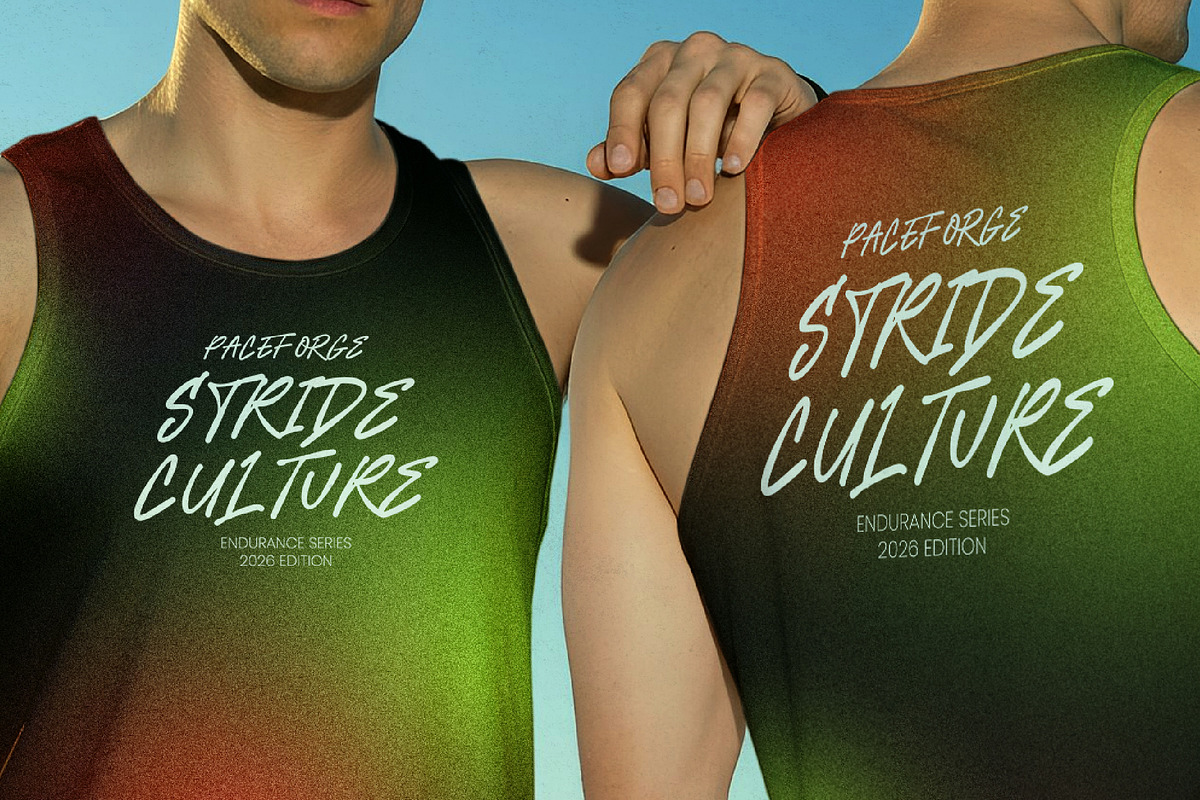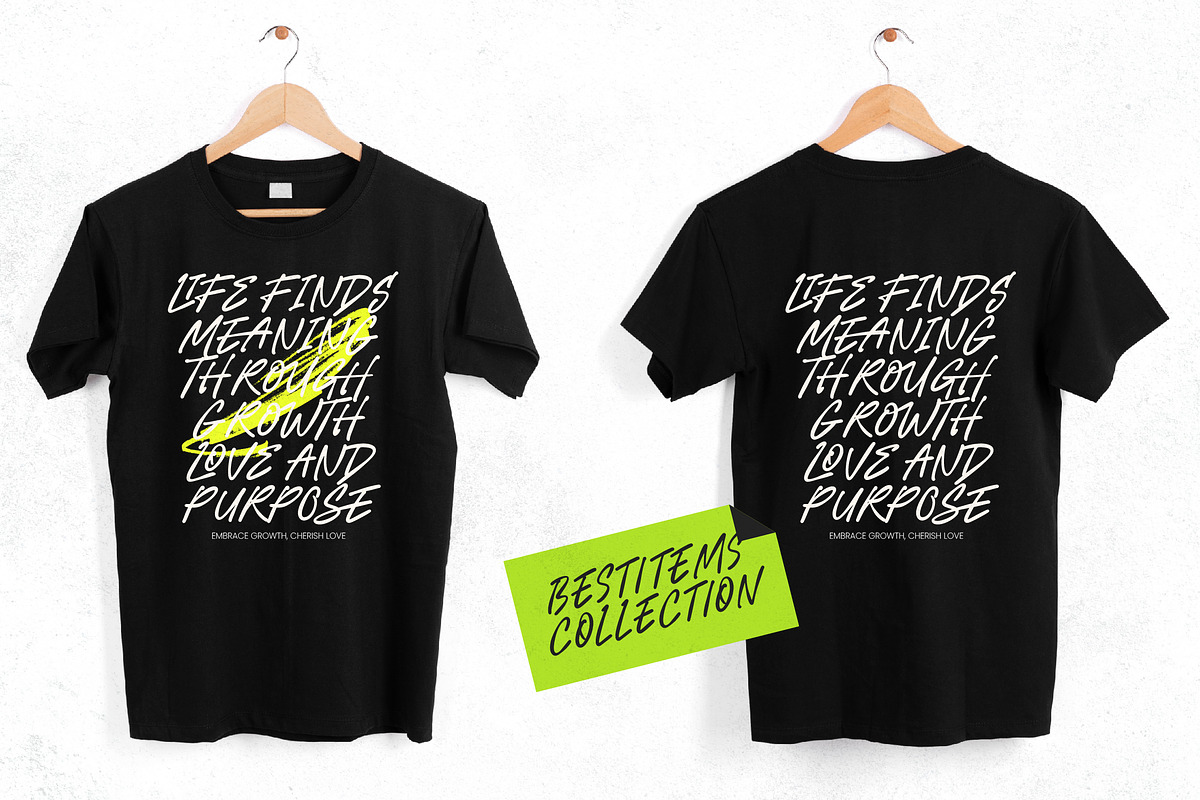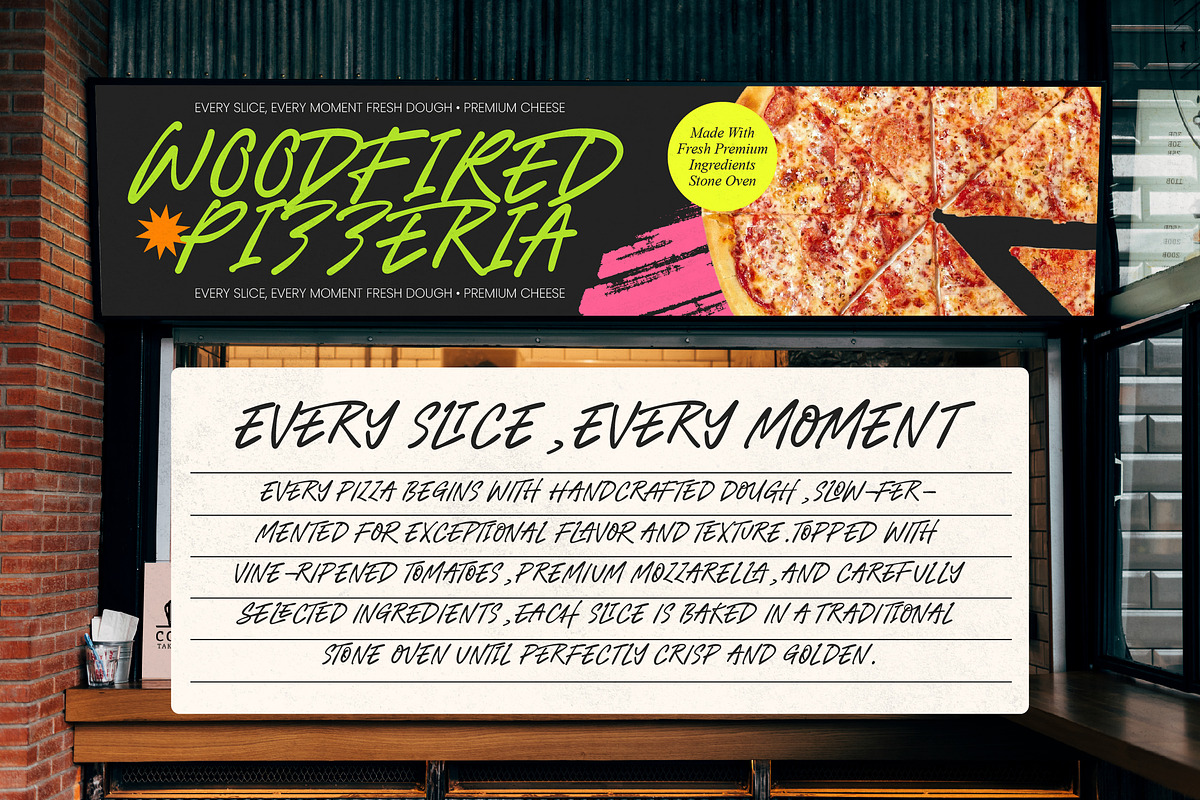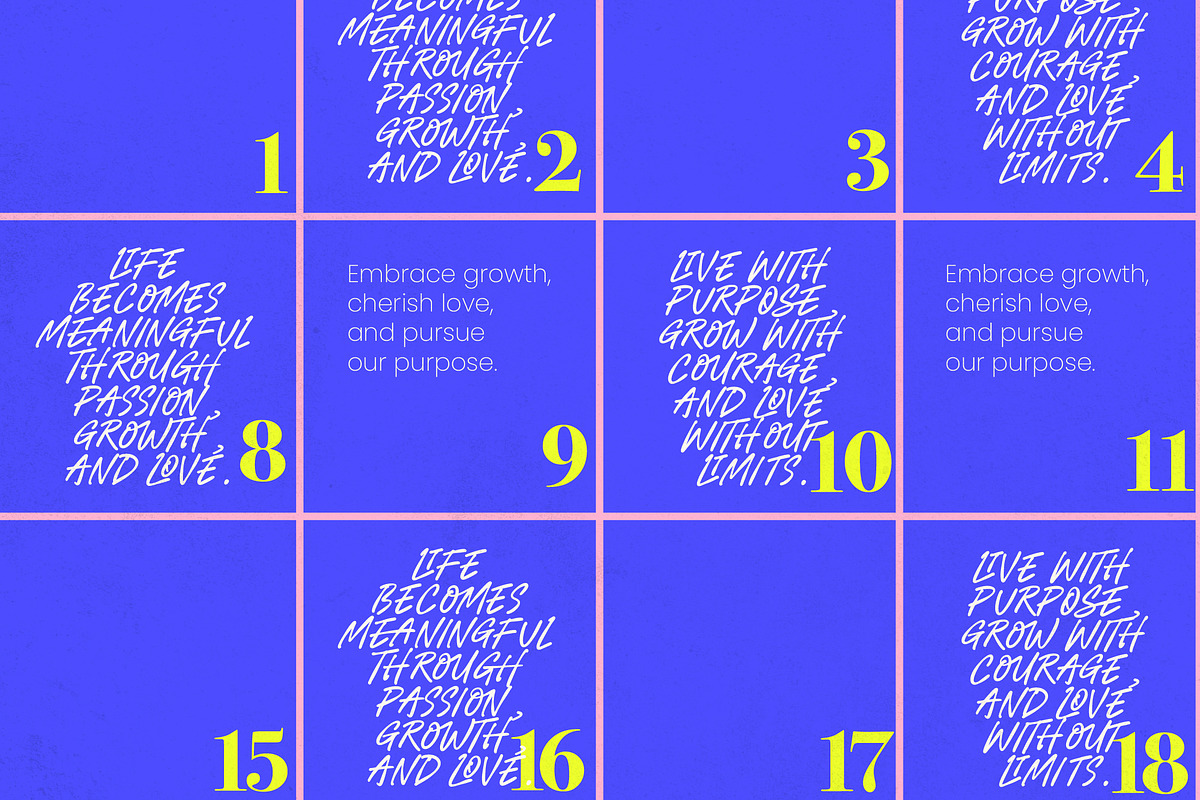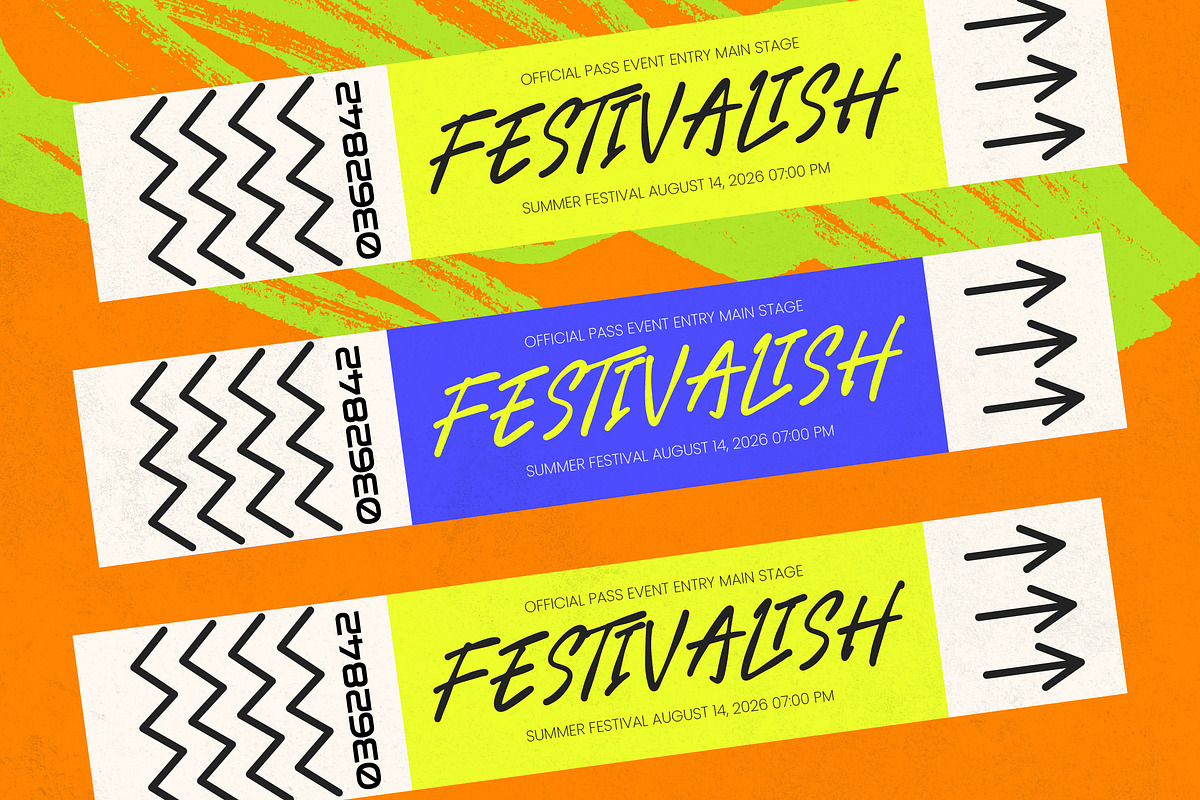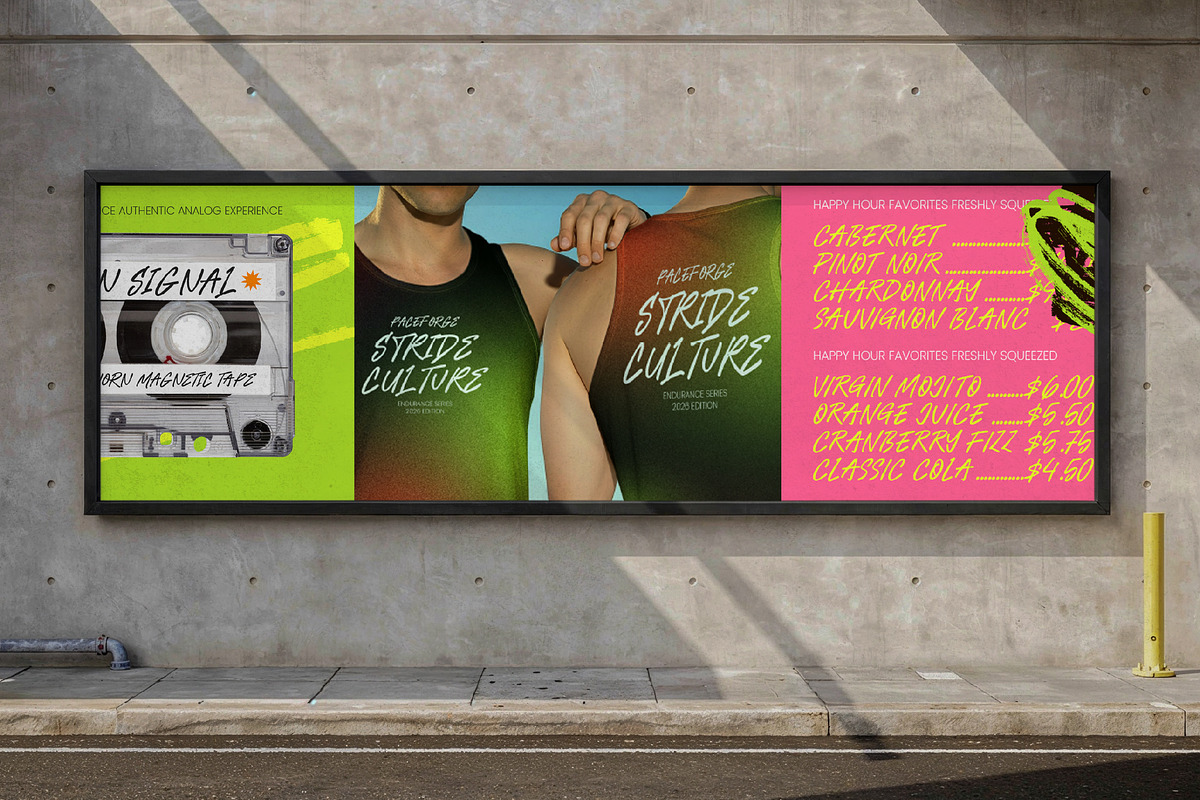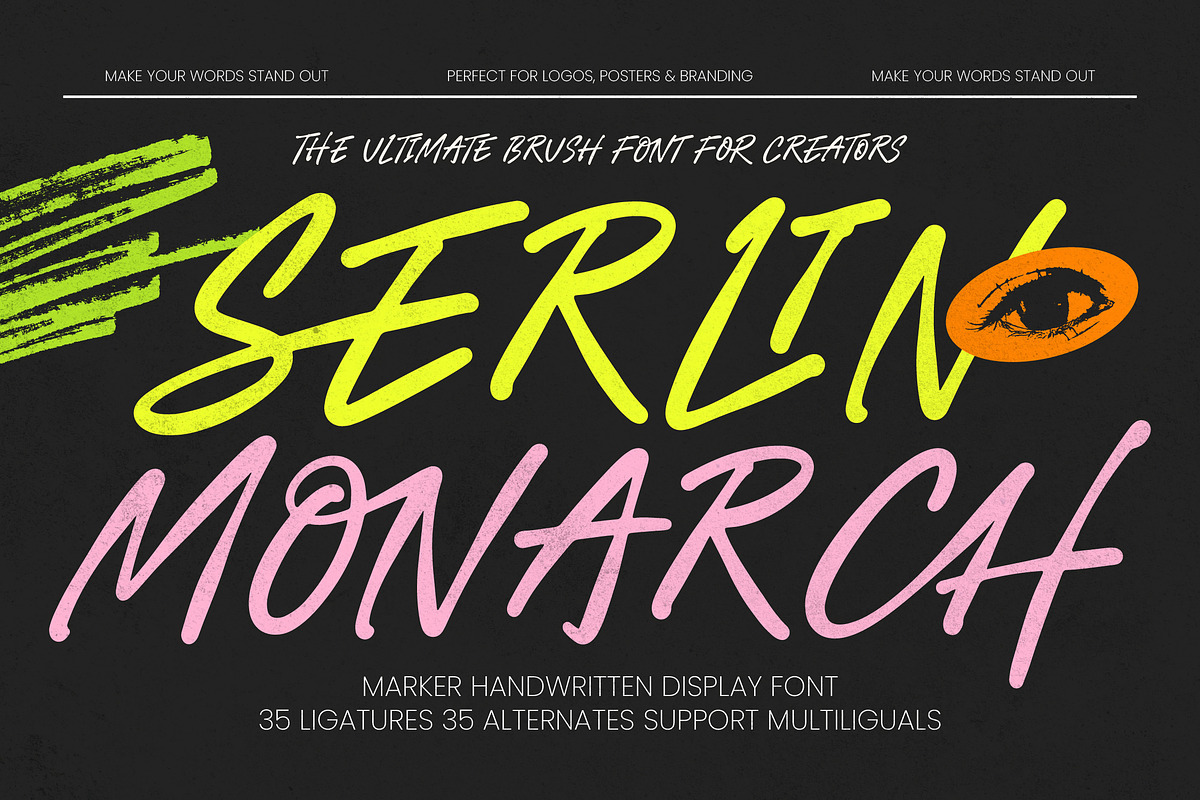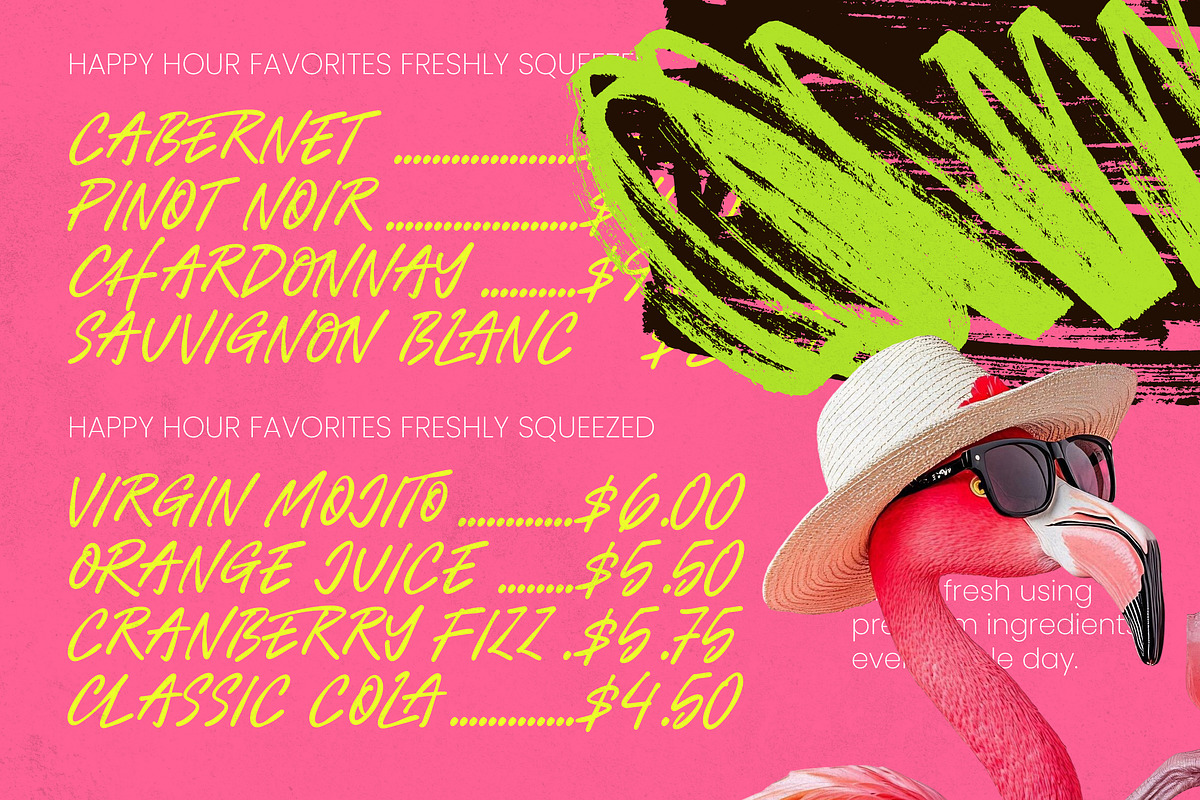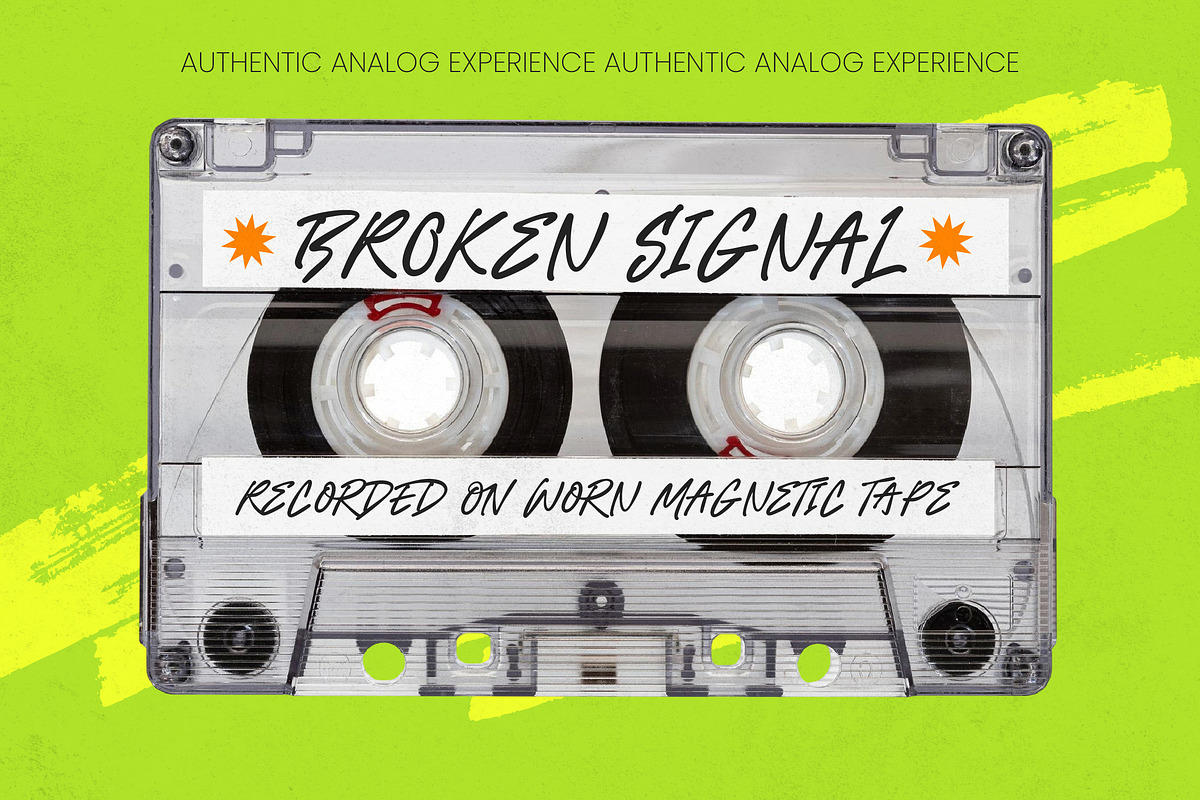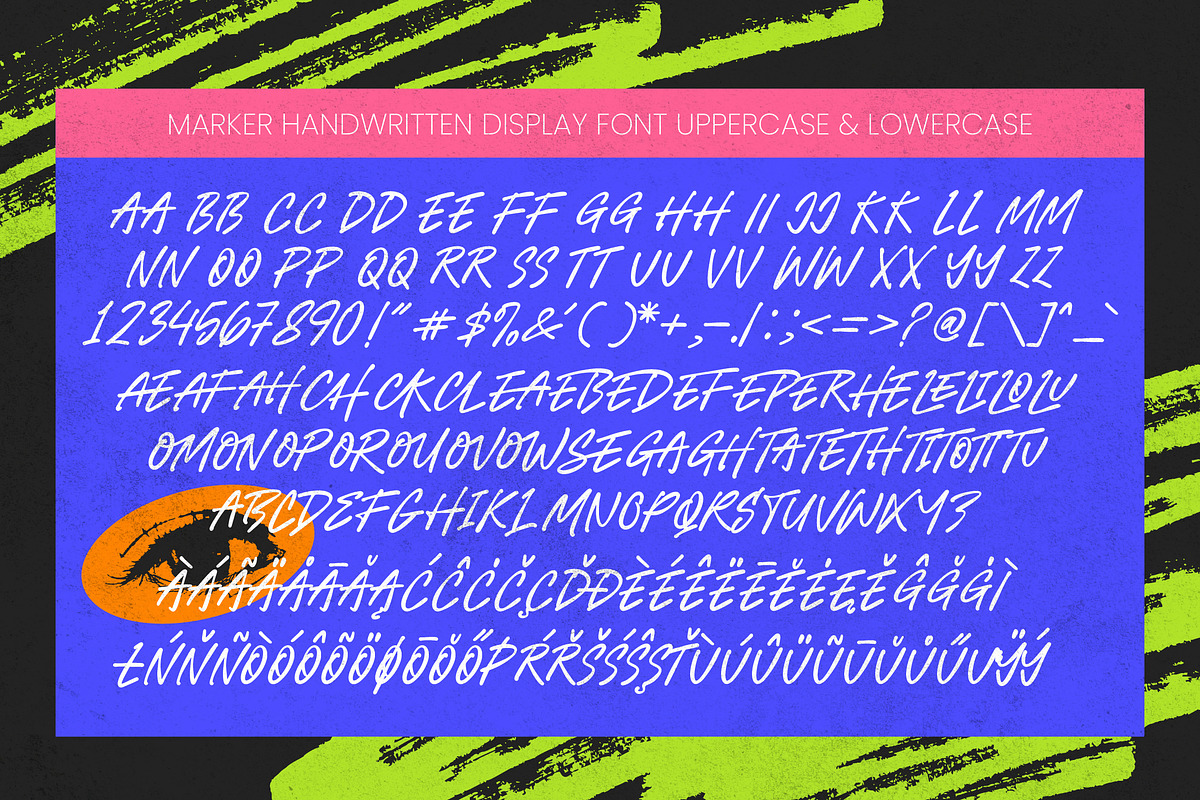
Serlin Monarch Marker Handwritten
Serlin Monarch - Marker Handwritten Display Font
Elevate your creative vision with a raw, energetic aesthetic that captures the essence of urban culture. Serlin Monarch - Marker Handwritten Display Font stands out as a premier choice for designers seeking authentic texture and dynamic brush strokes. This marker-style typeface delivers a street-style energy that instantly commands attention, ensuring your headlines are both memorable and visually striking.
Experience unparalleled creative freedom with a font engineered for high-end customization. Featuring 35 unique ligatures and 35 stylistic alternates, Serlin Monarch - Marker Handwritten Display Font provides an organic flow that mimics genuine handcrafted lettering. Its bold, expressive character allows for a natural handwriting feel, making it an essential tool for any modern creator looking to push the boundaries of contemporary typography.
Expand your brand’s reach across every border and language with robust technical features. With its extensive multilingual support, Serlin Monarch - Marker Handwritten Display Font adapts seamlessly across global markets, making it incredibly versatile for international projects. This ensures that your visual communication remains consistent and professional, allowing your message to resonate with diverse audiences on a worldwide scale.
Transform your marketing materials into iconic visual statements with the perfect application of style. This versatile display font is perfect for urban branding, streetwear apparel, and high-impact social media graphics. It is also an ideal solution for creative packaging, poster design, and editorial layouts that require a bold, rebellious edge. Choose Serlin Monarch - Marker Handwritten Display Font to define your brand identity with unmatched personality and professional flair.